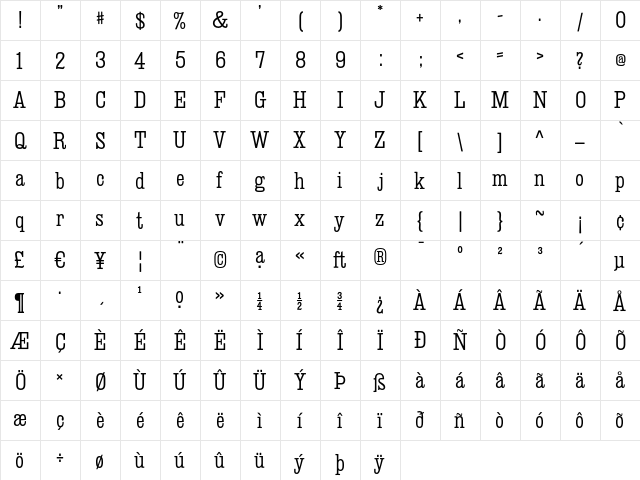
Deadwood Singlewide Light
Design Context for Deadwood Typeface
Deadwood echoes the hand-painted signage and woodblock typography of the American frontier, with a warm, rugged personality. Its slender proportions lend an understated elegance to any composition.
Perfect for barbecue restaurants, country music branding, vintage poster design, and rustic packaging.
Font Pairing: Combine Deadwood with a simple slab or neutral sans — period-accurate companions reinforce the vintage feel without competing for attention.
Pro Tip: Pair Deadwood with aged textures or distressed backgrounds to amplify its vintage personality.